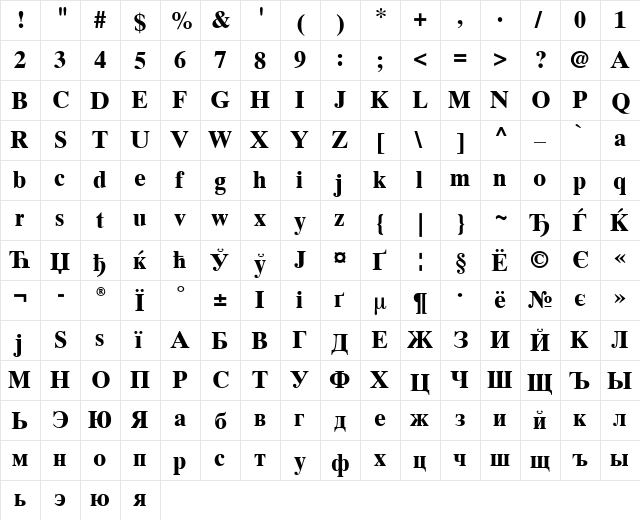
Times Ten Cyr Upright Bold Font Preview
Times Ten Cyr Upright Bold
Times Ten Cyr Upright Bold Font Details
Design Context for Times Ten Cyr Upright Typeface
Times Ten Cyr Upright is a composed and adaptable typeface that performs quietly and consistently across a wide range of design contexts. Its bold stroke weight gives it real presence on the page.